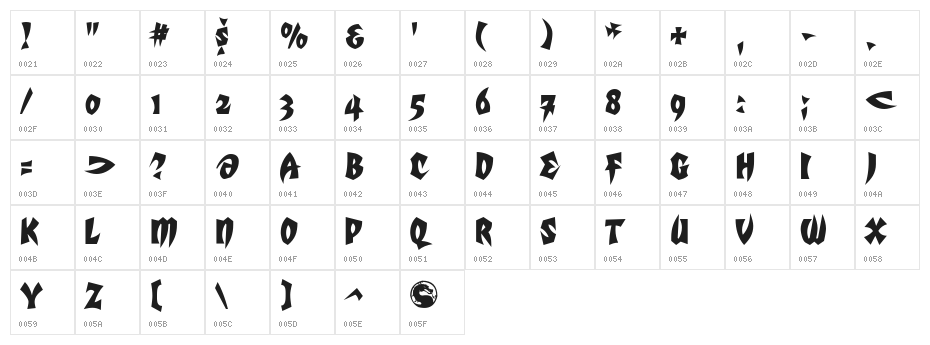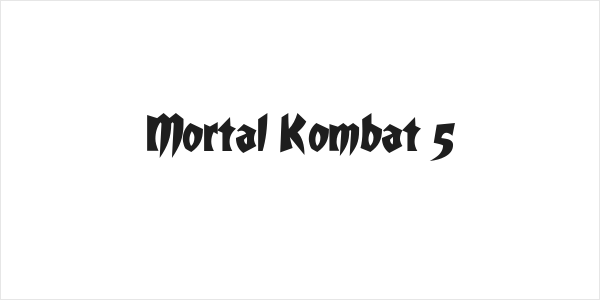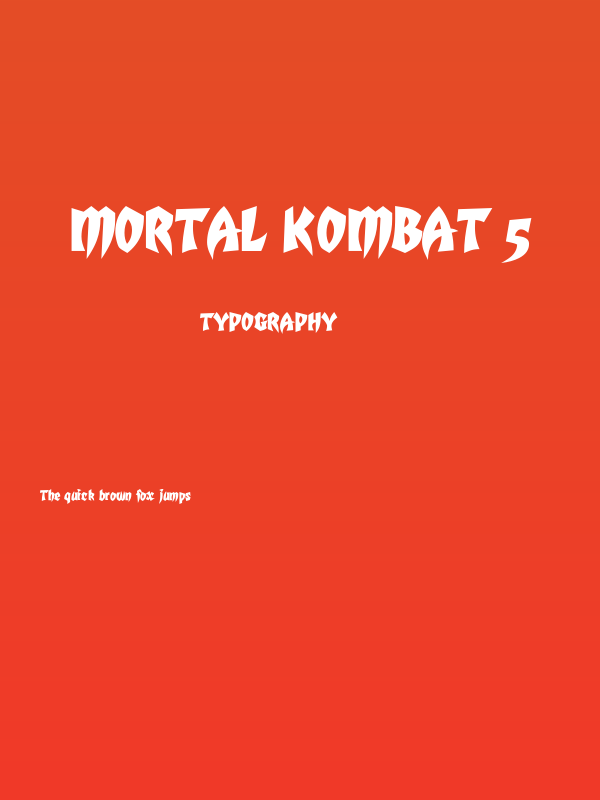
Mortal Kombat 5 Font
Mortal Kombat 5 Description
This font features a bold and aggressive style with sharp, angular edges and a strong presence. The characters are designed with a distinct flair, incorporating pointed tips and dramatic curves that evoke a sense of power and intensity. The uppercase and lowercase letters maintain a consistent theme, with each character exhibiting unique cuts and angles that enhance its visual impact. The numerals and special characters follow the same design principles, ensuring a cohesive look across all glyphs. This font's striking appearance makes it ideal for projects that require a bold and memorable statement.
| Overall Style | Modern, Aggressive |
| Proposed Projects | Ideal for video game titles, movie posters, branding for extreme sports, and any project requiring a bold, impactful design. |